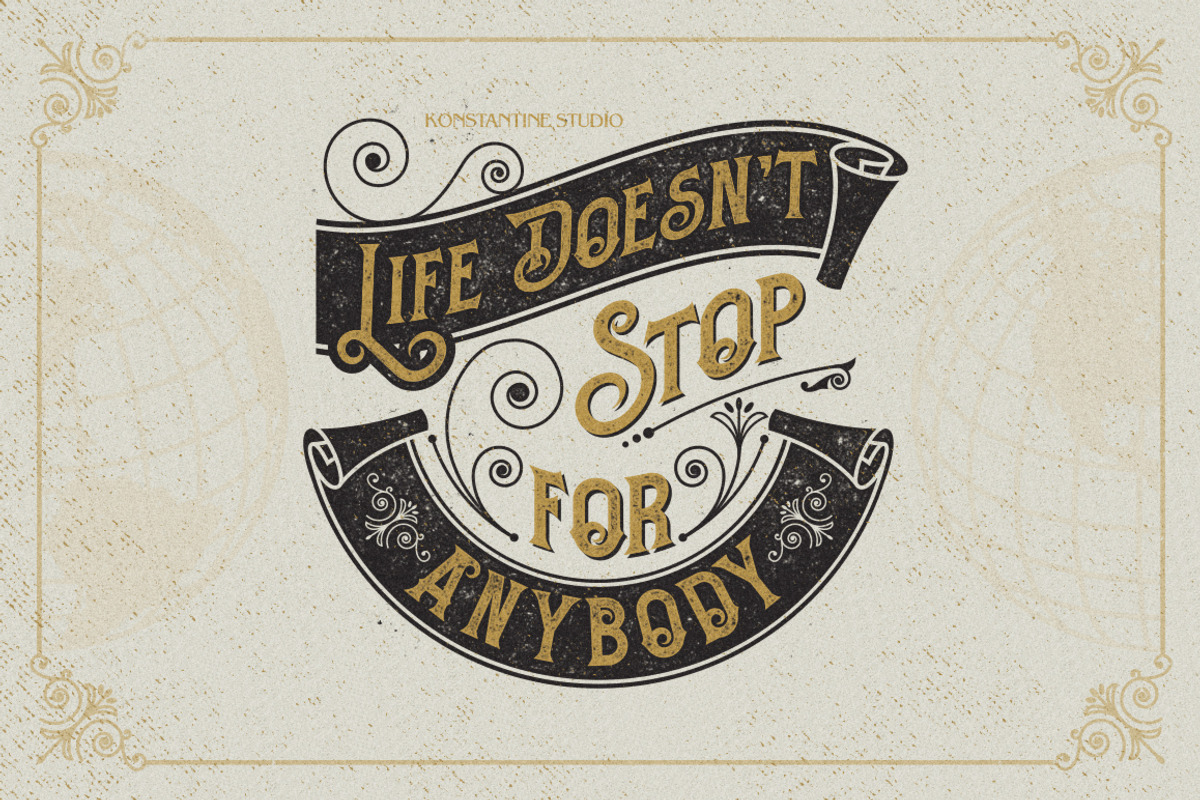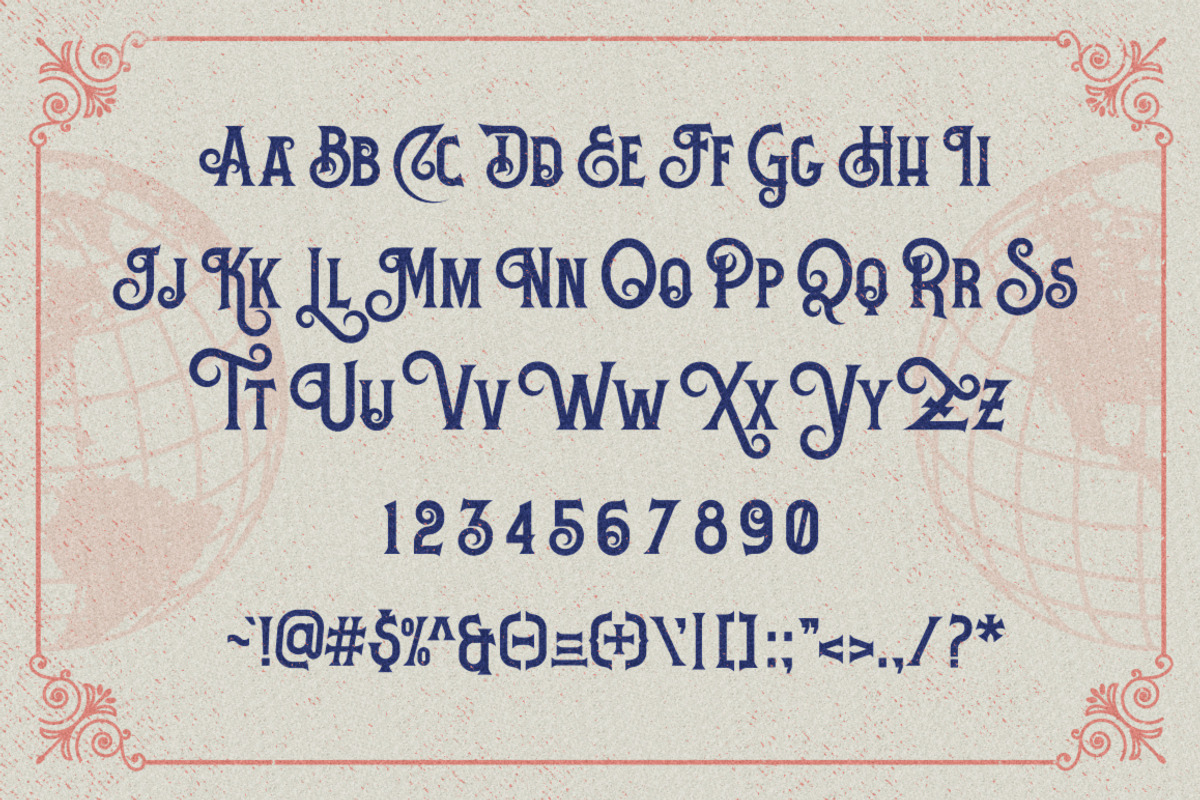
Hemera Vintage Branding font
Hemera Vintage Branding font by Konstantine Studio is a font selected for branding, posters, packaging, typography.
- Inspired from the old classic matchbox packages, A solid bold vintage lettering style typeface with sharp serif and a little bit decorative.
- Perfectly good to get your nostalgic vibes from the old stuff collections, just play with it and you'll get an instant vintage classy looks,
Why Hemera Vintage Branding font is worth a look
Hemera Vintage Branding font by Konstantine Studio fits naturally into Branding, posters, packaging, typography.